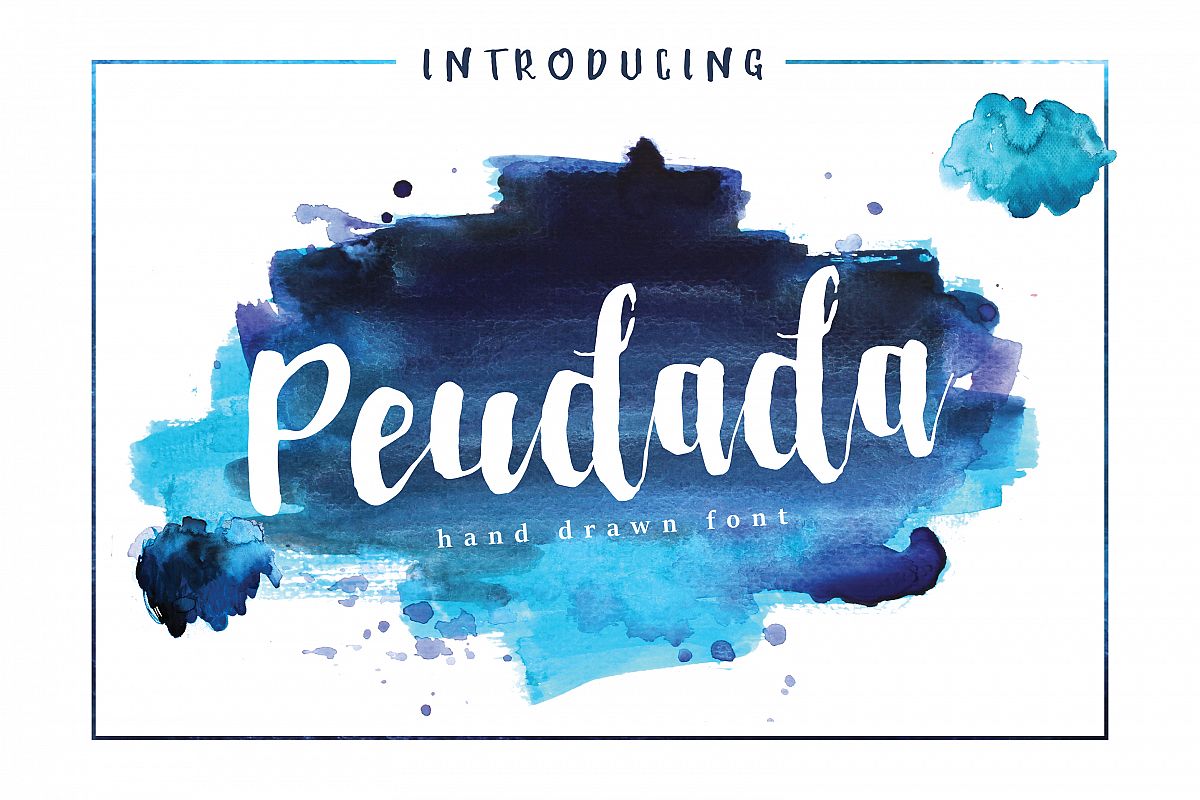
Peudada
Peudada script font for your projects! Hand drawn brush script! ?
This handwritten font is perfect for cards, prints, logos, wedding invitations, arrange illustration and decoration.
It is beautiful lettering. I made this font for your artwork! It has upper and lower case letters, numbers, special characters, accents and ligatures..